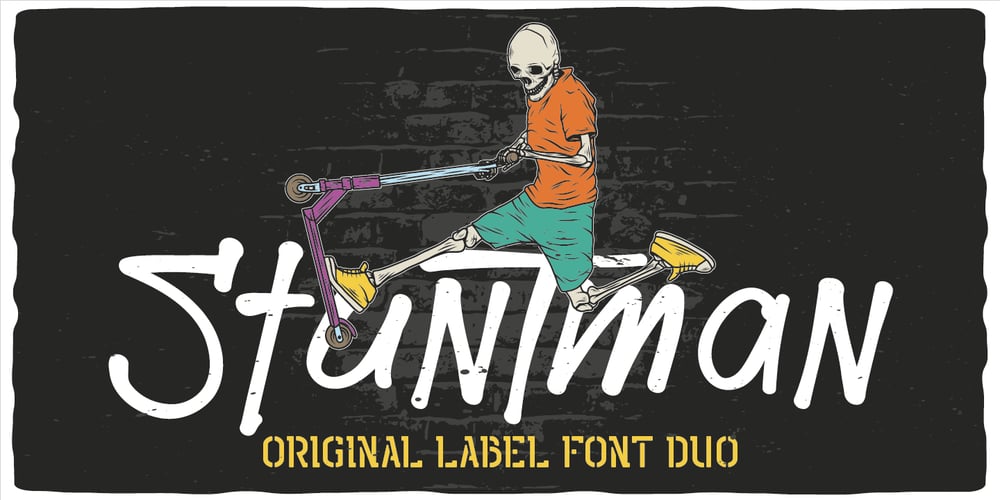
Stuntman Font Family was designed by Oleg Voznyy and published by Vozzy. Stuntman contains 4 styles and family package options. Introducing a hand-crafted label font duo named Stuntman. All available characters you can see at the screenshots. This family have two fonts – Script and Stencil; and for each included two styles – Clean and Paint (dripping effect). This font will good viewed on any retro design like poster, t-shirt, label, logo etc.